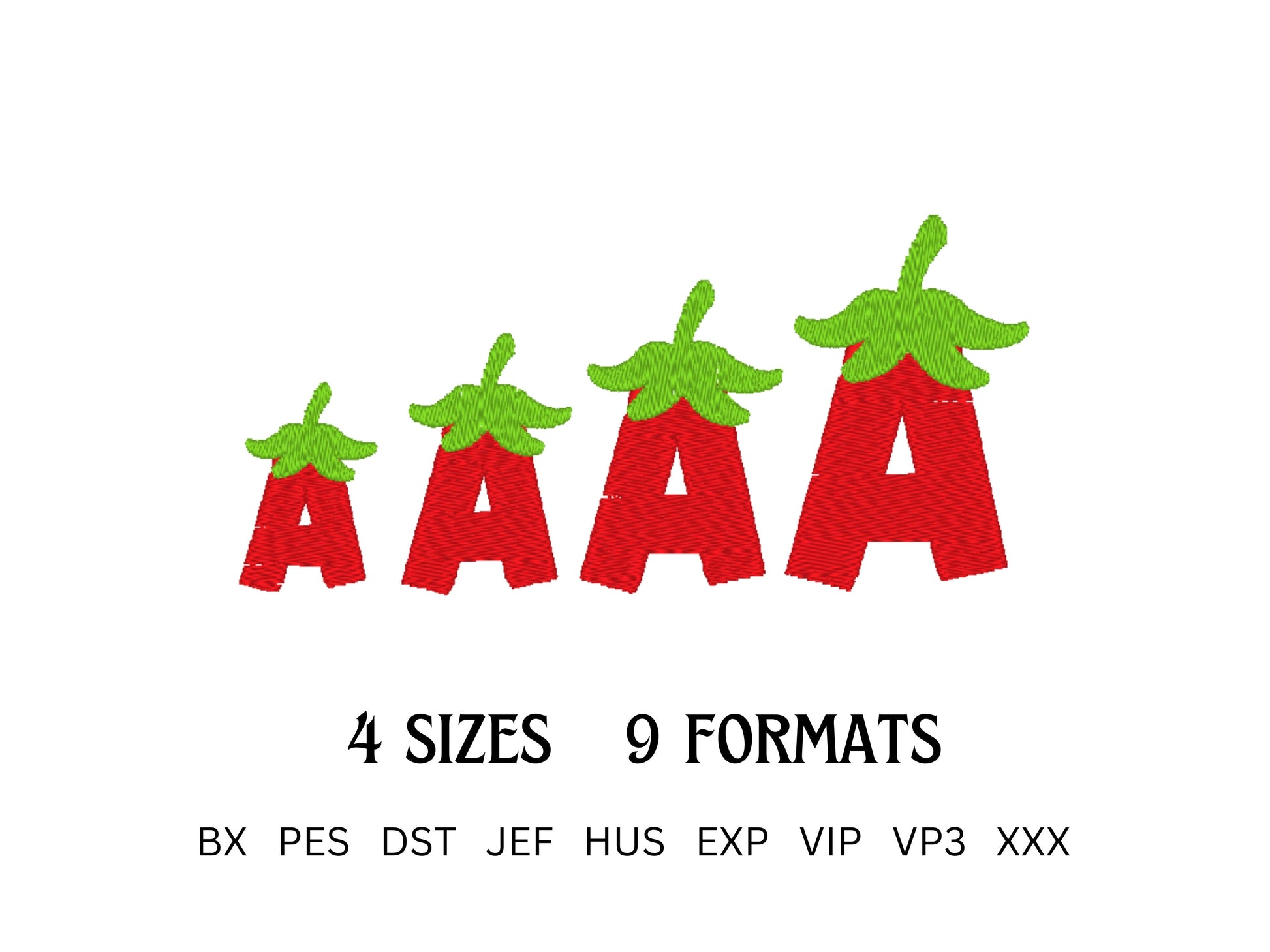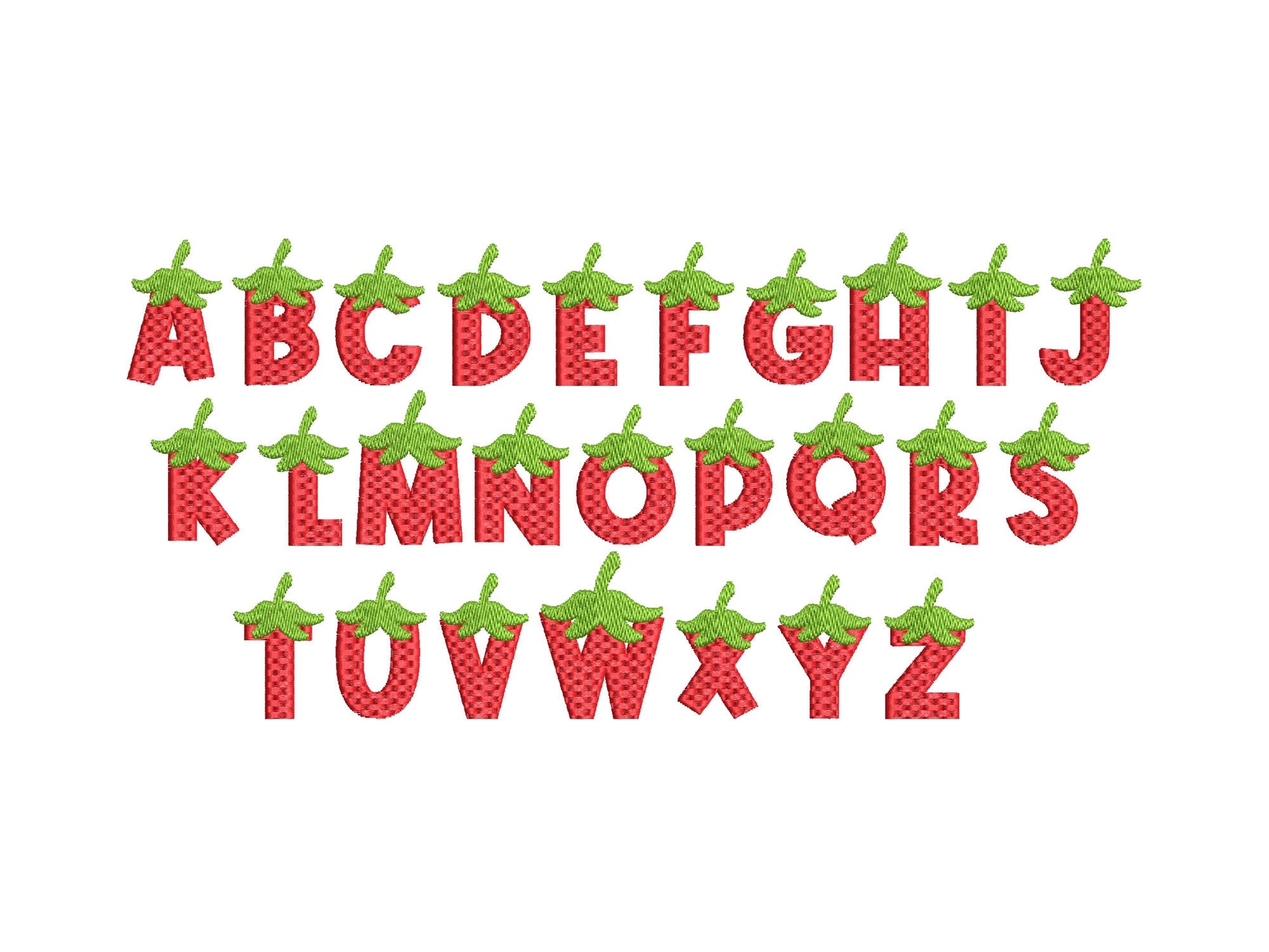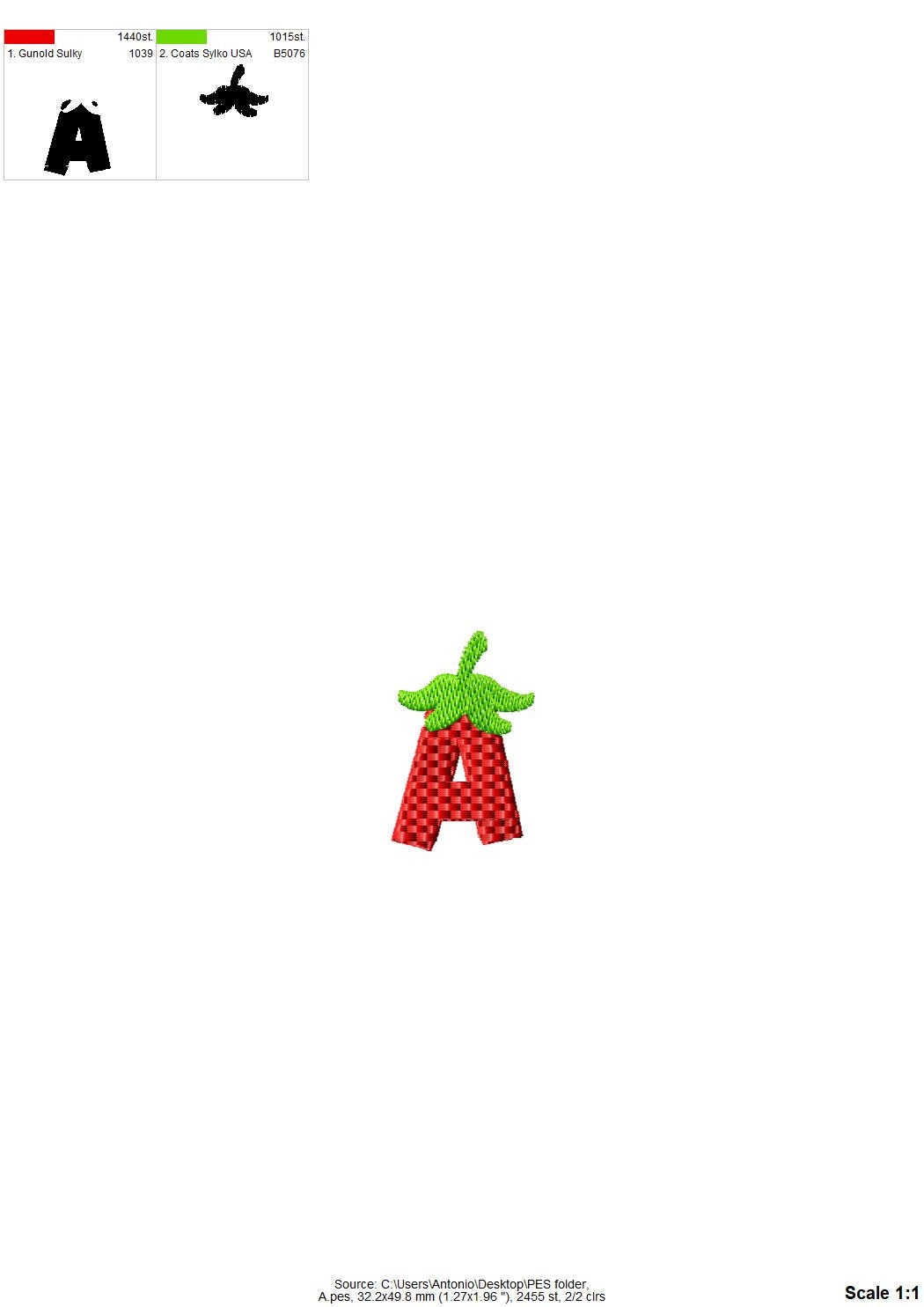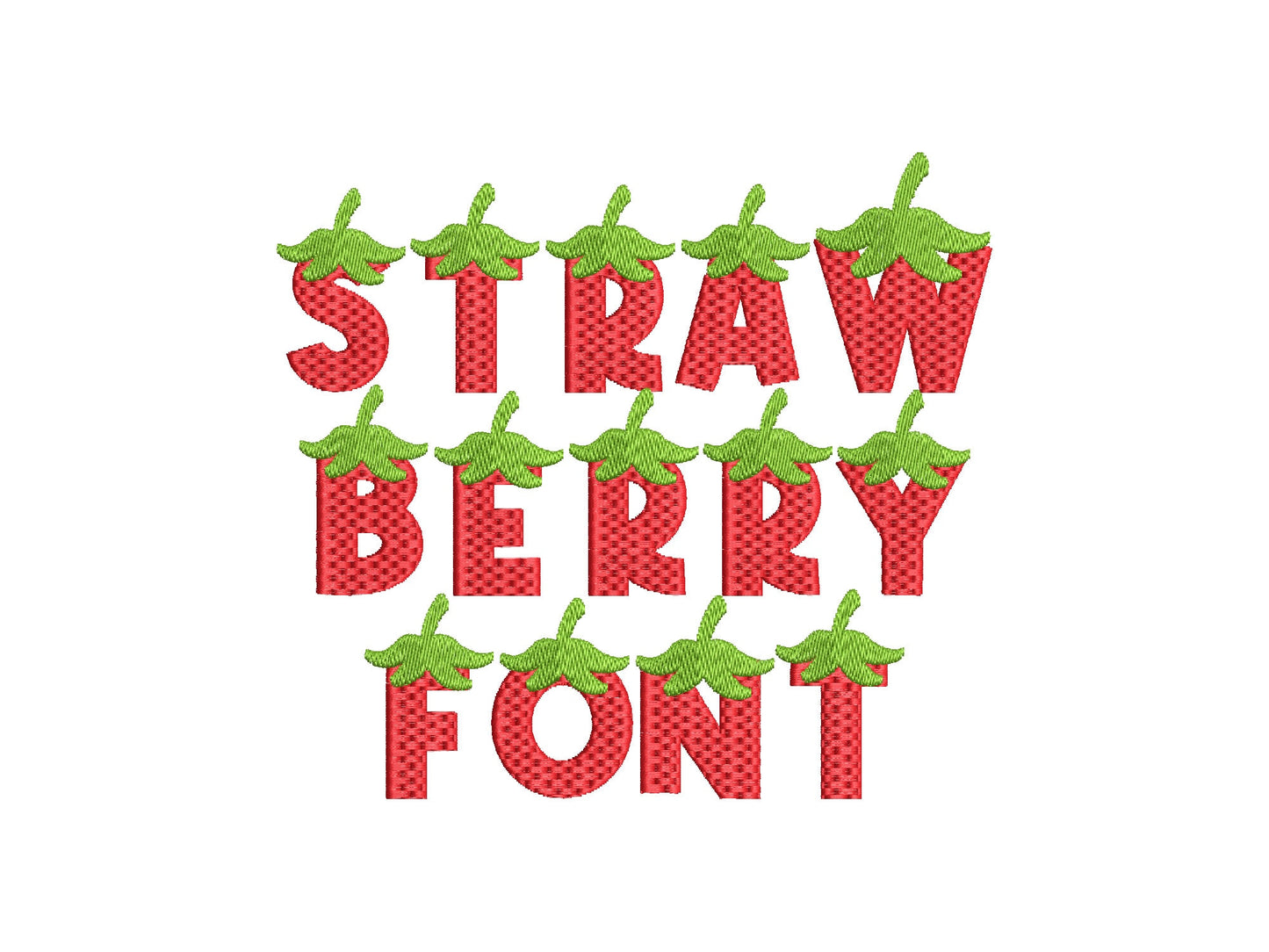
Patterned Strawberry Font Tutti Frutti
Or click to open the linkA patterned strawberry font in fill and waffle stitch, with little leaves on top. Summery for kids' shirts, towels, bags and names.
Capital letters A to Z shaped like strawberries, with leaves on top, in four sizes: 1.6, 2, 2.3 and 2.8 inches.
- Patterned strawberry font
- Capital letters A-Z
- 4 sizes, 1.6 to 2.8 in